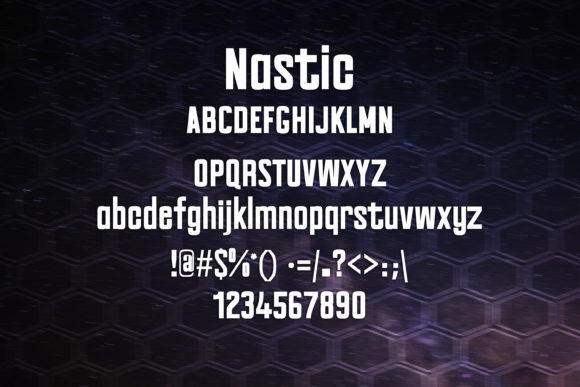
Introduction to Nastic Font
Have you ever stared at a blank canvas, trying to decide on the perfect font to bring your creative vision to life? For many designers, this moment is a crucial part of the process – the moment when the project’s tone and atmosphere are set. And what better way to add a bold flavor to your design than with a font that’s as unique as it is beautiful?
That’s where the Nastic Font comes in – a sans serif font that’s sure to elevate your creative project to the next level. With its high-quality design and transparent background, this font is the perfect addition to any design resource. Whether you’re working on a personal project or a commercial client, the Nastic Font is a valuable tool that’s sure to impress.
Key Features of Nastic Font
- High-quality font with a transparent background, perfect for creative projects requiring a unique design element.
- Designed with a focus on versatility, Nastic Font is ideal for use in a wide range of creative projects, from logos to typography-based artwork.
- Unique characteristics include a blend of modern and vintage elements, making it a standout design resource for creatives.
Honest Review: Nastic Font
As a designer, I’m always on the lookout for unique and high-quality design resources to elevate my creative projects. I recently stumbled upon the Nastic Font, and I must say, it’s a real gem.
What works well: ✨ The Nastic Font has a beautiful, modern aesthetic that’s perfect for a variety of design applications. Its clean lines and subtle flair make it an excellent choice for anyone looking to add a touch of sophistication to their work. I particularly appreciate the fact that it comes with a transparent background, which makes it incredibly versatile.
That being said, there are a few limitations to keep in mind: ⚠️ The font can be a bit tricky to customize, and some users may find the character set a bit limited. However, these are minor quibbles in an otherwise excellent font.
Overall, I’m thoroughly impressed with the Nastic Font. It’s a fantastic addition to any designer’s collection, and I highly recommend it for anyone looking to take their creative projects to the next level.
Nastic Font
Nastic Font is a high-quality, free design resource perfect for any creative project. This versatile font features a transparent background, making it easy to customize and integrate into your designs.
Getting the Most Out of Nastic Font
Experiment with different font sizes, colors, and combinations to achieve unique and creative effects.
Nastic Font is perfect for:
- Marketing materials and social media posts
- Wedding invitations and event materials